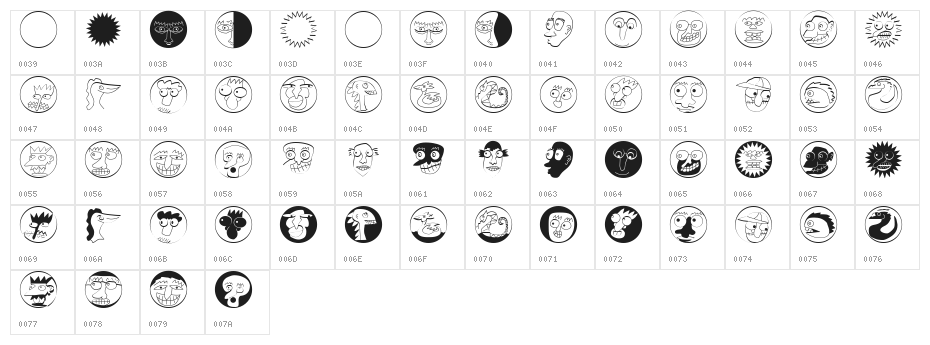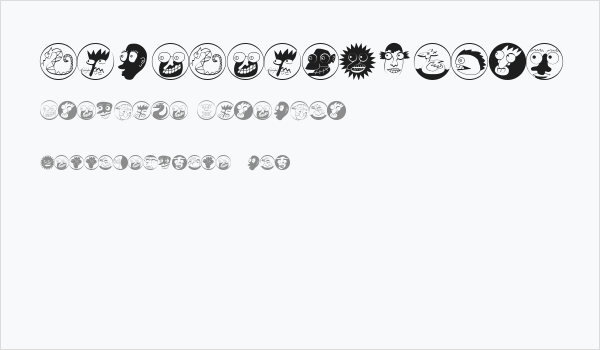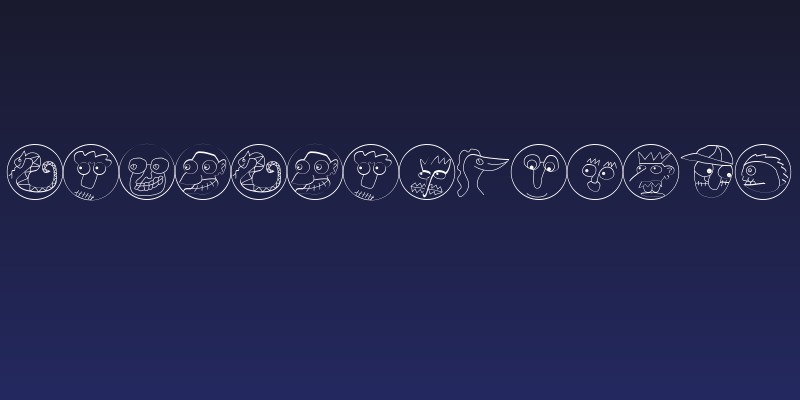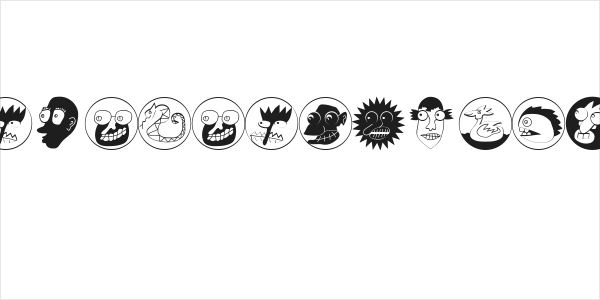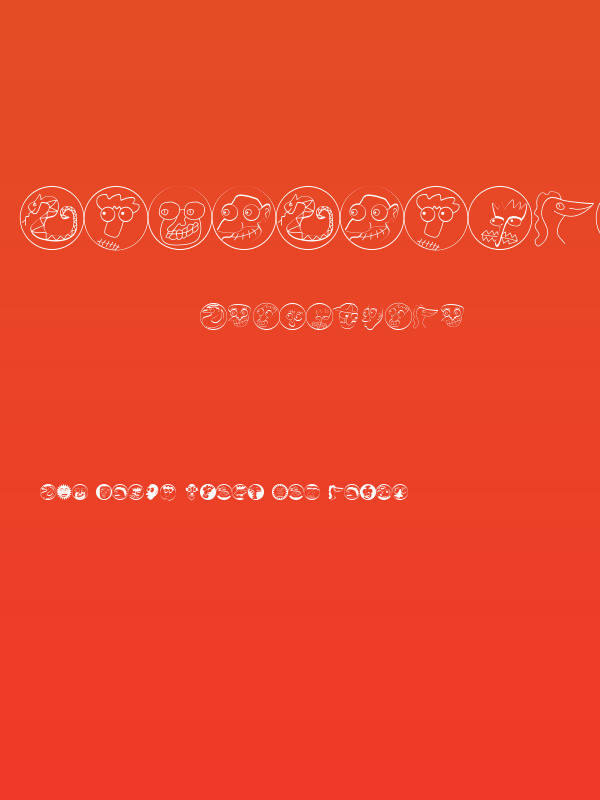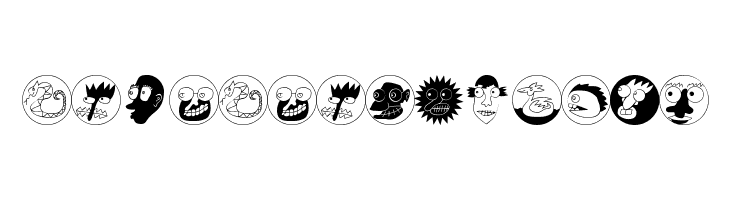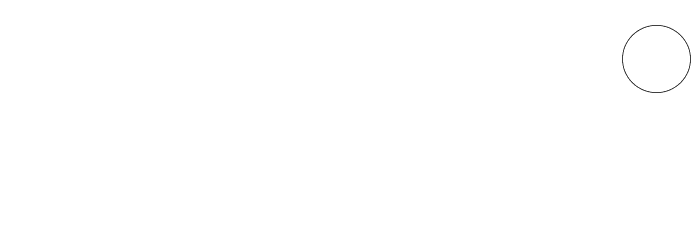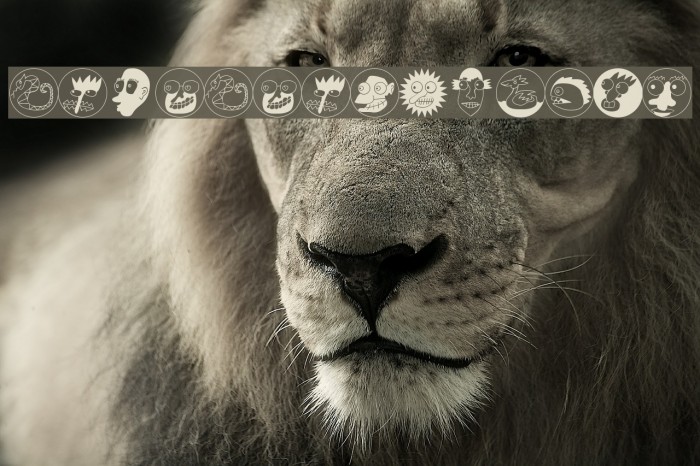
NiceNeighbours Font
NiceNeighbours Description
This is a decorative font featuring a series of whimsical and quirky character illustrations enclosed in circles. Each character is unique, with exaggerated facial features and playful expressions, creating a lively and humorous appearance. The design is bold and eye-catching, with a mix of black and white backgrounds that enhance the contrast and visibility of each character. The overall style is cartoonish and fun, making it suitable for creative and informal projects. The font does not follow traditional letterforms, focusing instead on character illustrations that convey a sense of humor and creativity.
| Overall Style | Cartoonish, Fun, Whimsical |
| Use Case | Logos, Posters, Invitations |
| Proposed Projects | Ideal for children's books, comic strips, playful branding, party invitations, and any project requiring a fun and whimsical touch. |